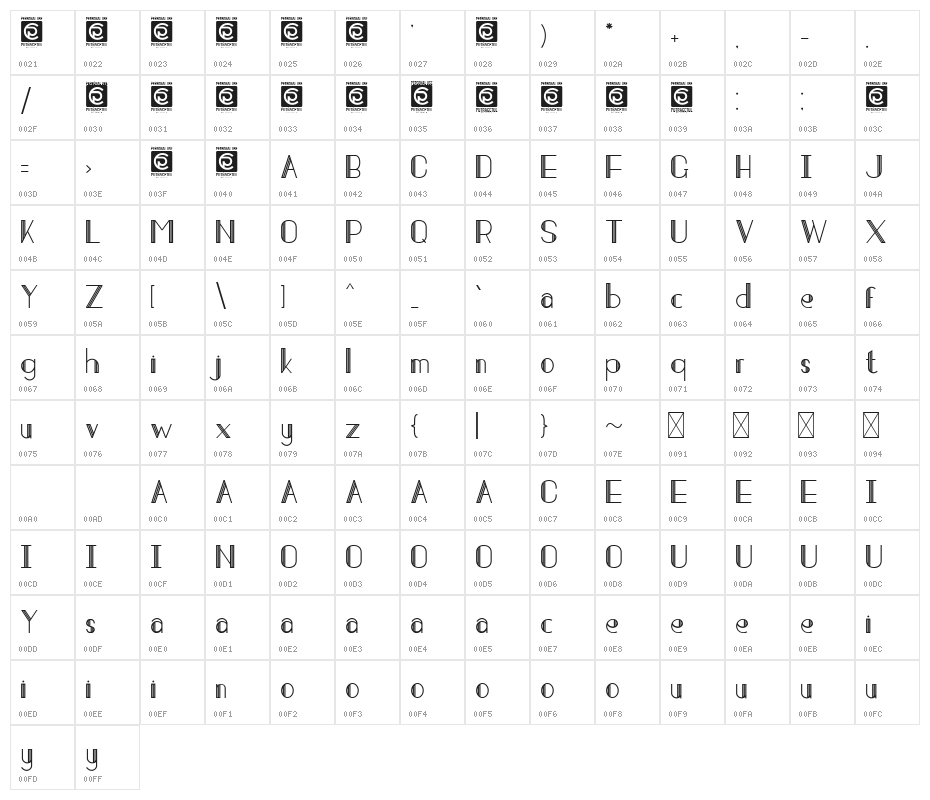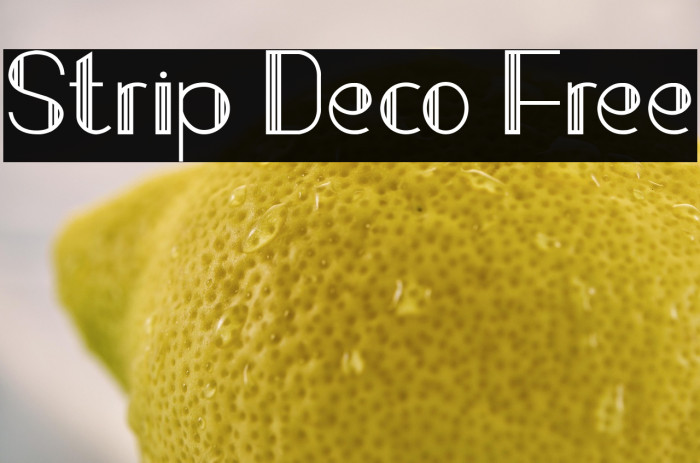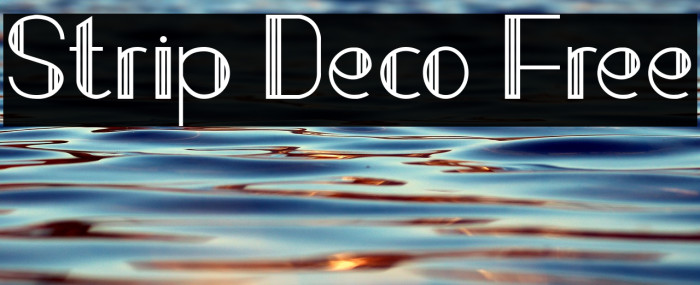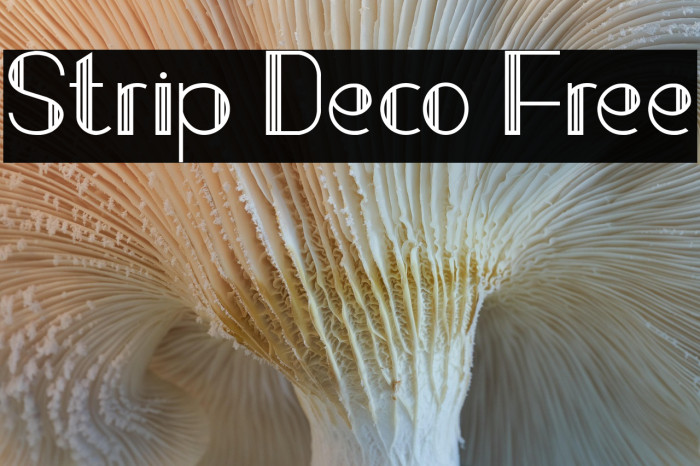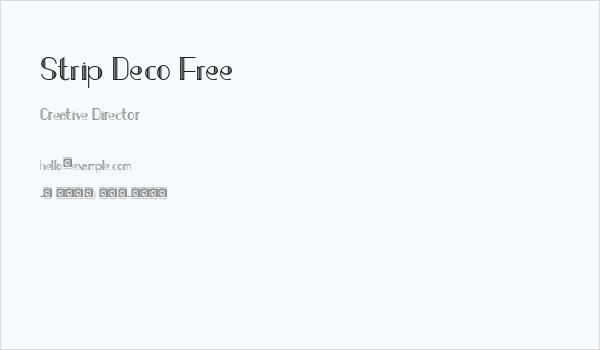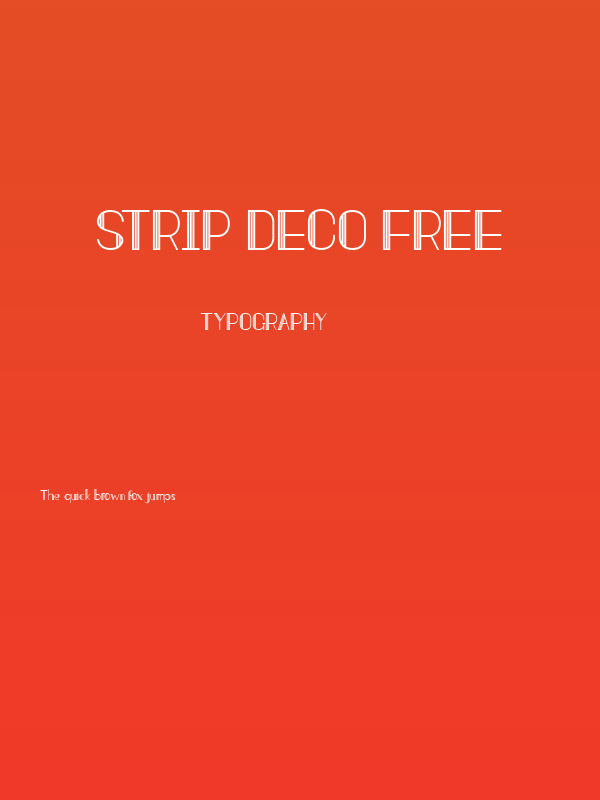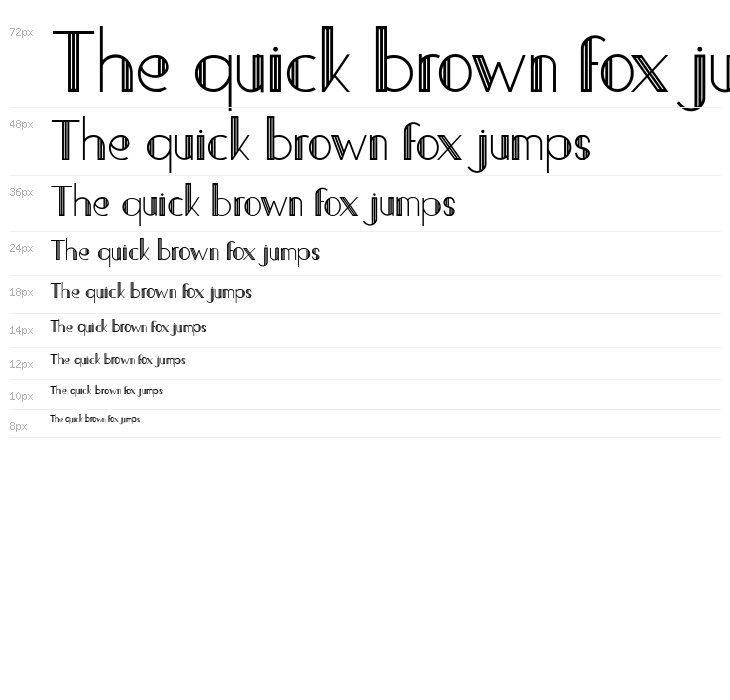
Strip Deco Free Font
Strip Deco Free Description
This font features a distinct Art Deco style with geometric and linear elements. The uppercase letters are characterized by their tall, narrow forms and double-line strokes, giving them a sophisticated and elegant appearance. The lowercase letters maintain a similar aesthetic, with a slightly more rounded and softer approach. The numerals and special characters follow the same design principles, ensuring consistency throughout. This font's unique style makes it ideal for projects that require a touch of vintage elegance and modern flair.
| Proposed Projects | Ideal for branding, posters, invitations, and any design project seeking a vintage yet modern aesthetic. |